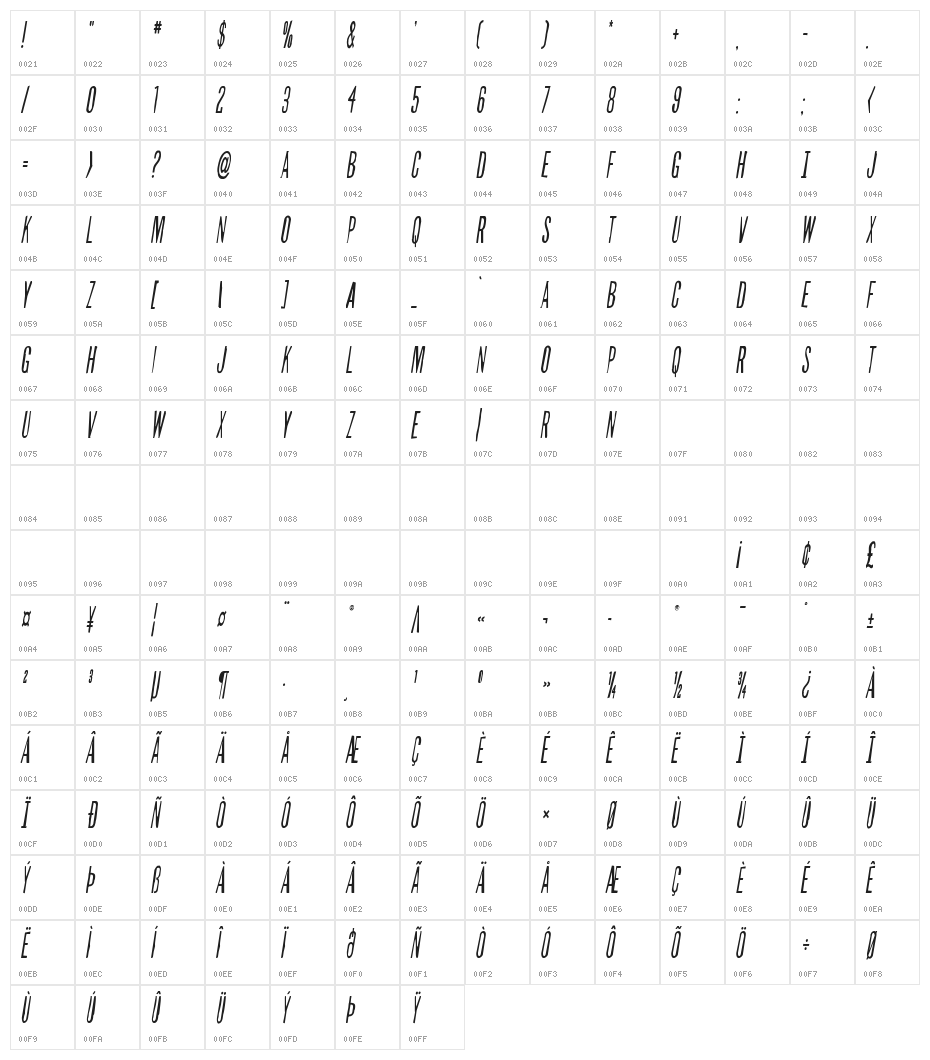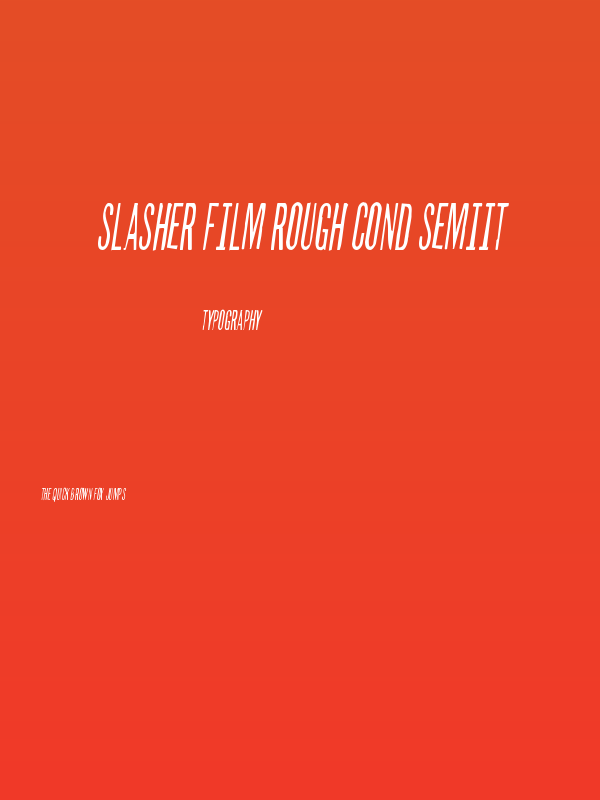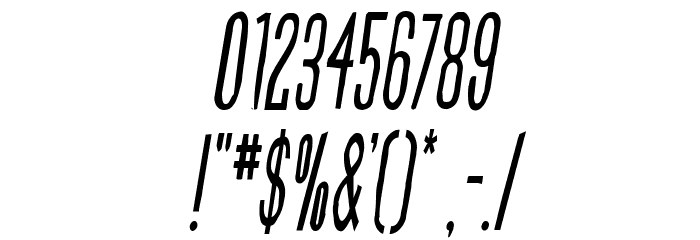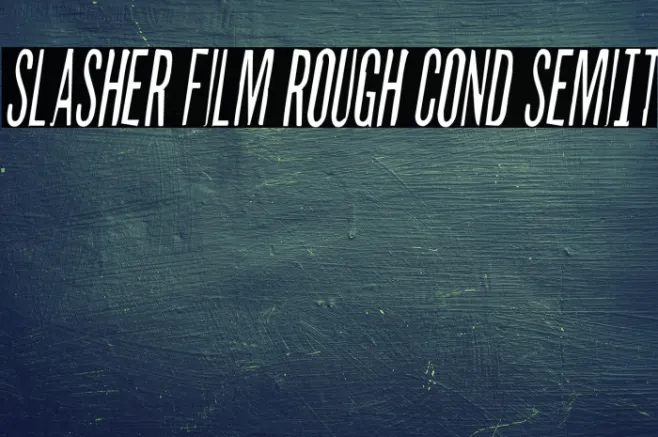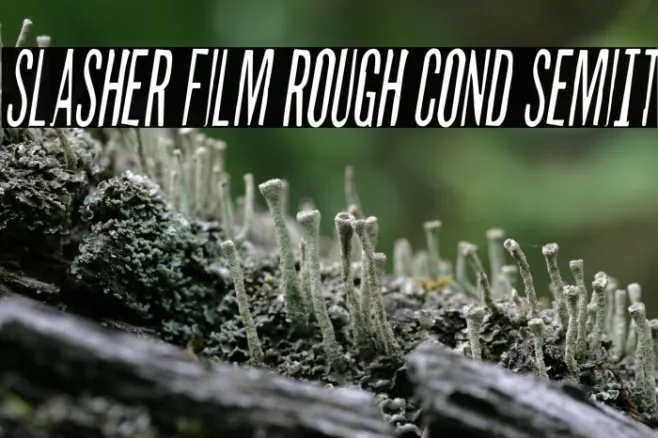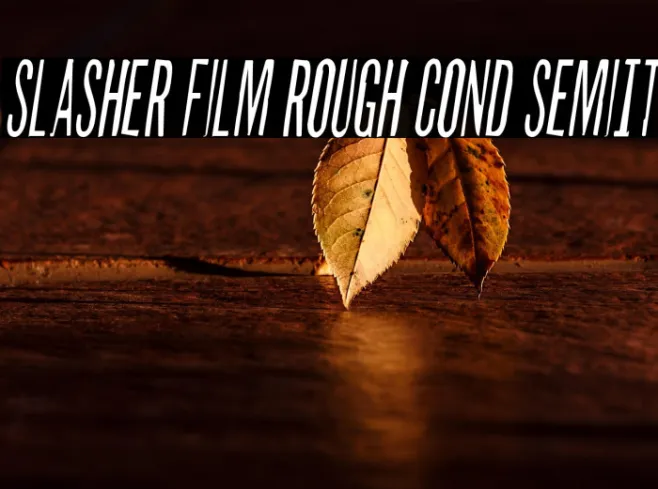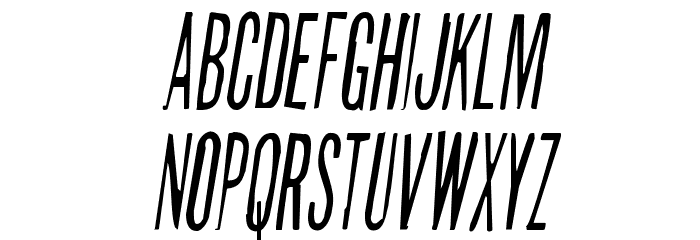
Slasher Film Rough Cond SemiIt Font
Slasher Film Rough Cond SemiIt Description
This font features a rough, edgy style with condensed letterforms and a semi-italic slant, giving it a dynamic and energetic appearance. The uppercase and lowercase letters are elongated, with sharp angles and a slightly distressed texture that adds a gritty, rebellious feel. The numerals and special characters maintain this aesthetic, ensuring a cohesive look across all glyphs. The font's unique style makes it ideal for projects that require a bold, attention-grabbing typeface with a touch of attitude.
| Overall Style | Modern, Edgy |
| Proposed Projects | Perfect for horror movie posters, edgy branding, music album covers, and streetwear designs. |